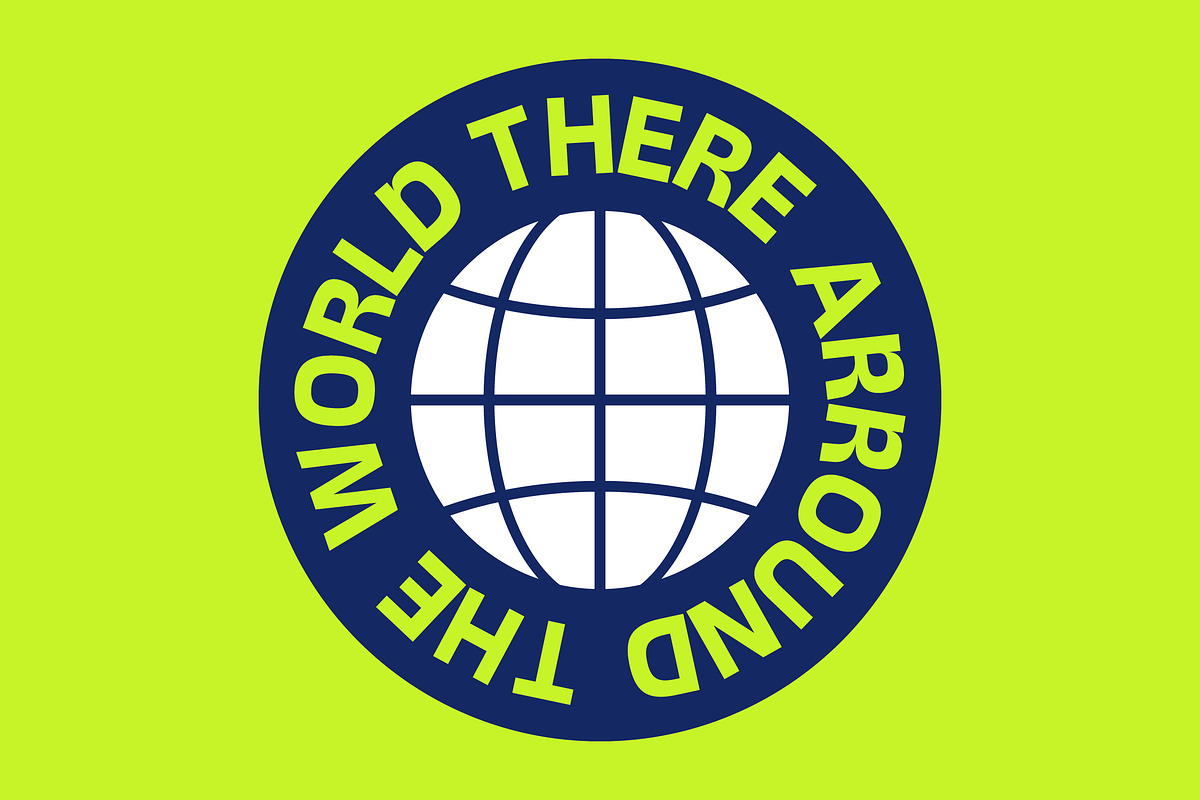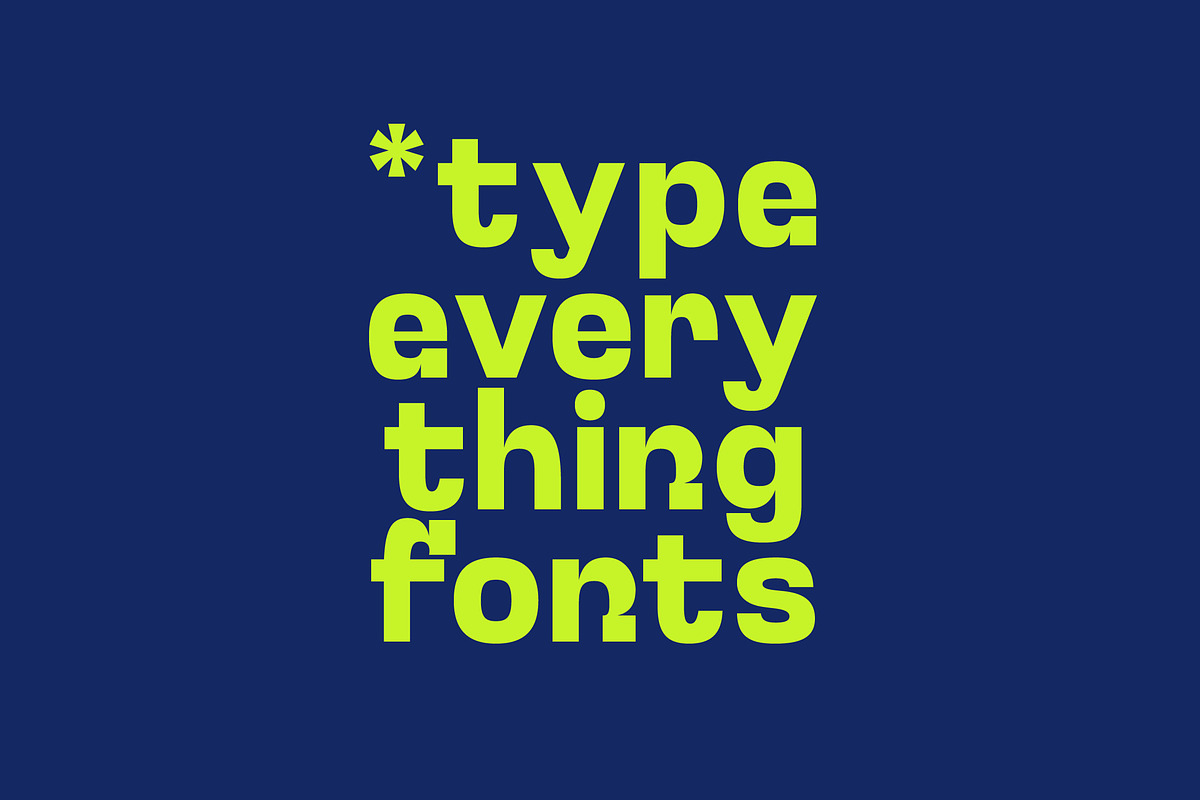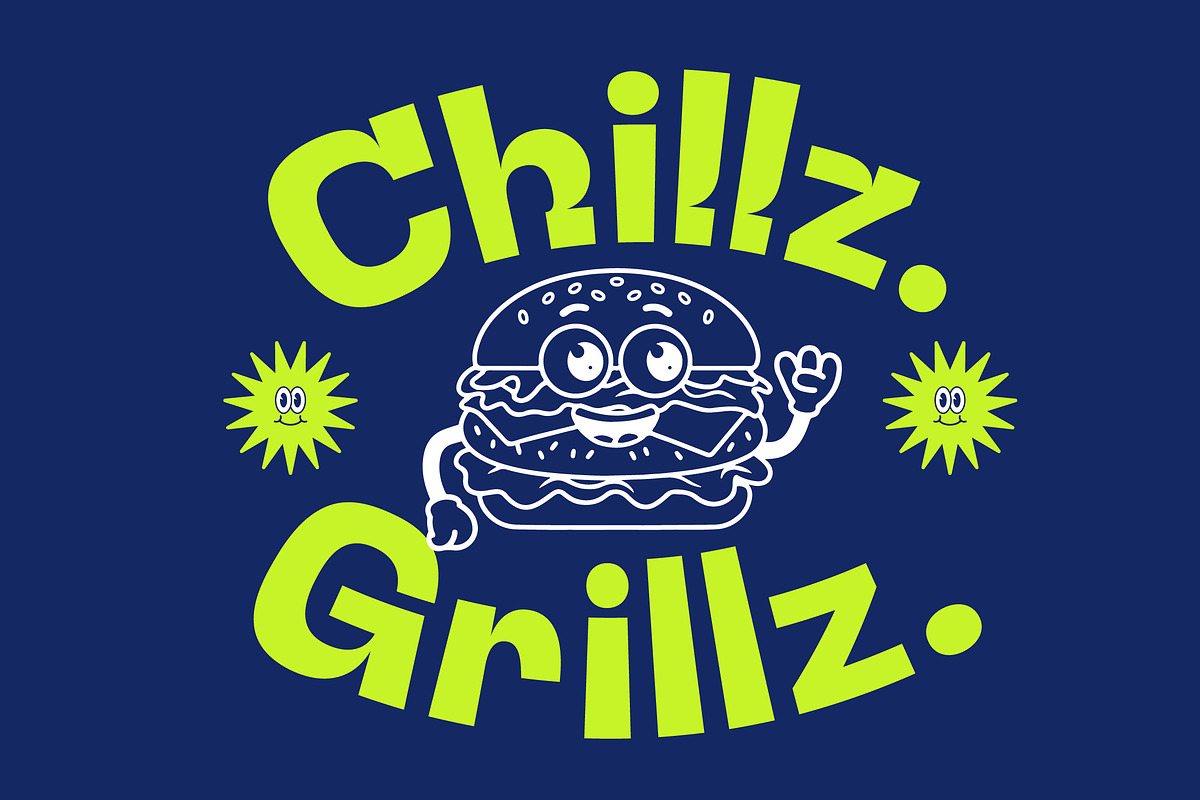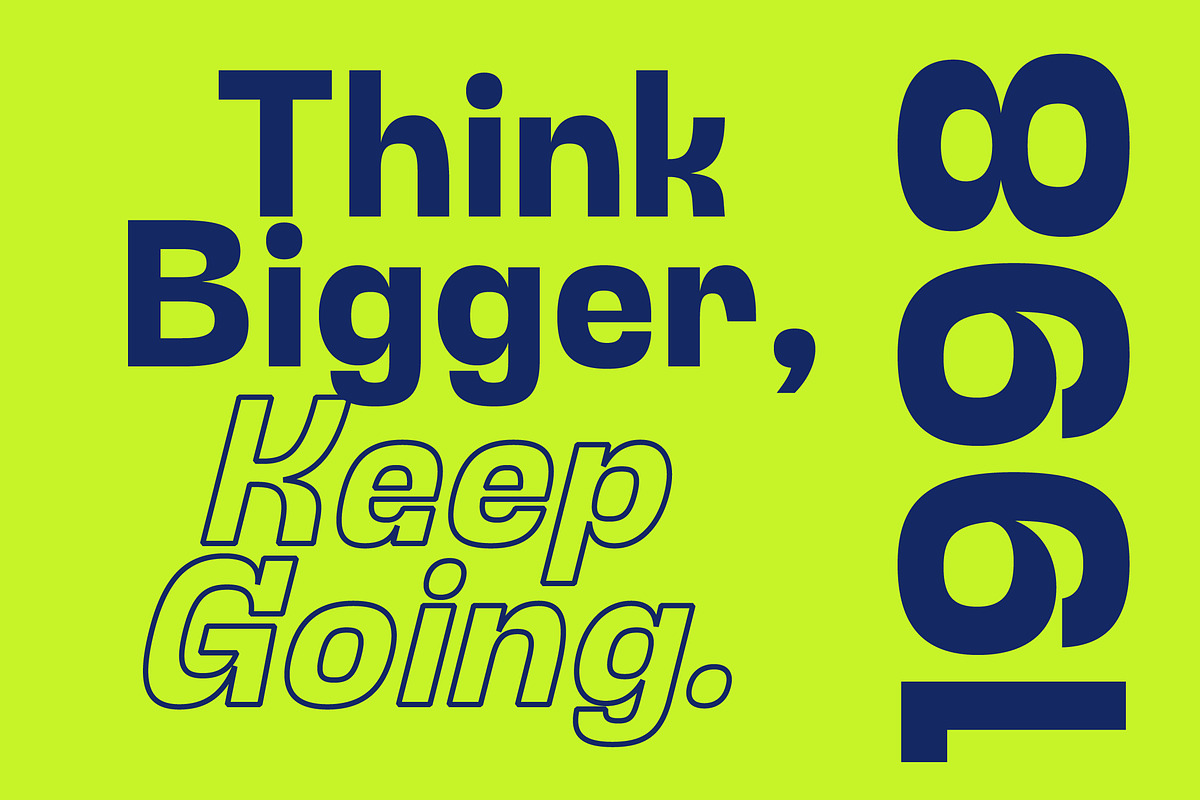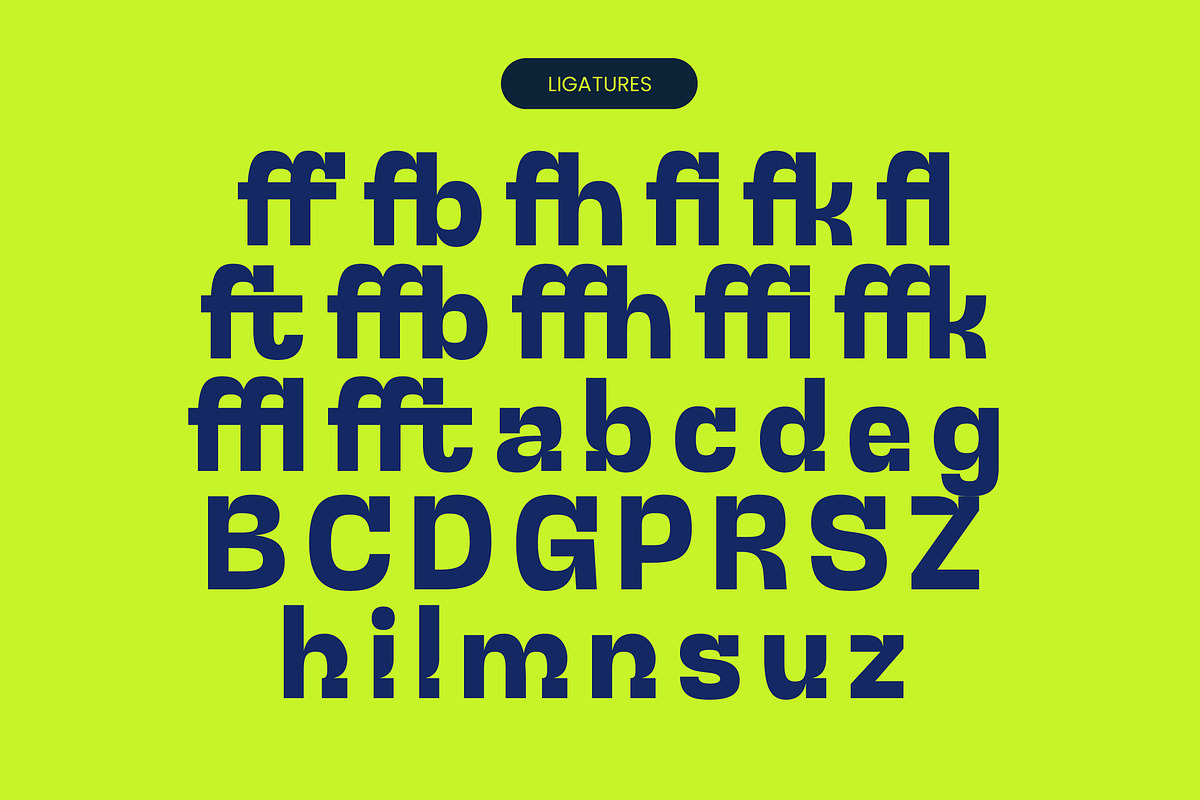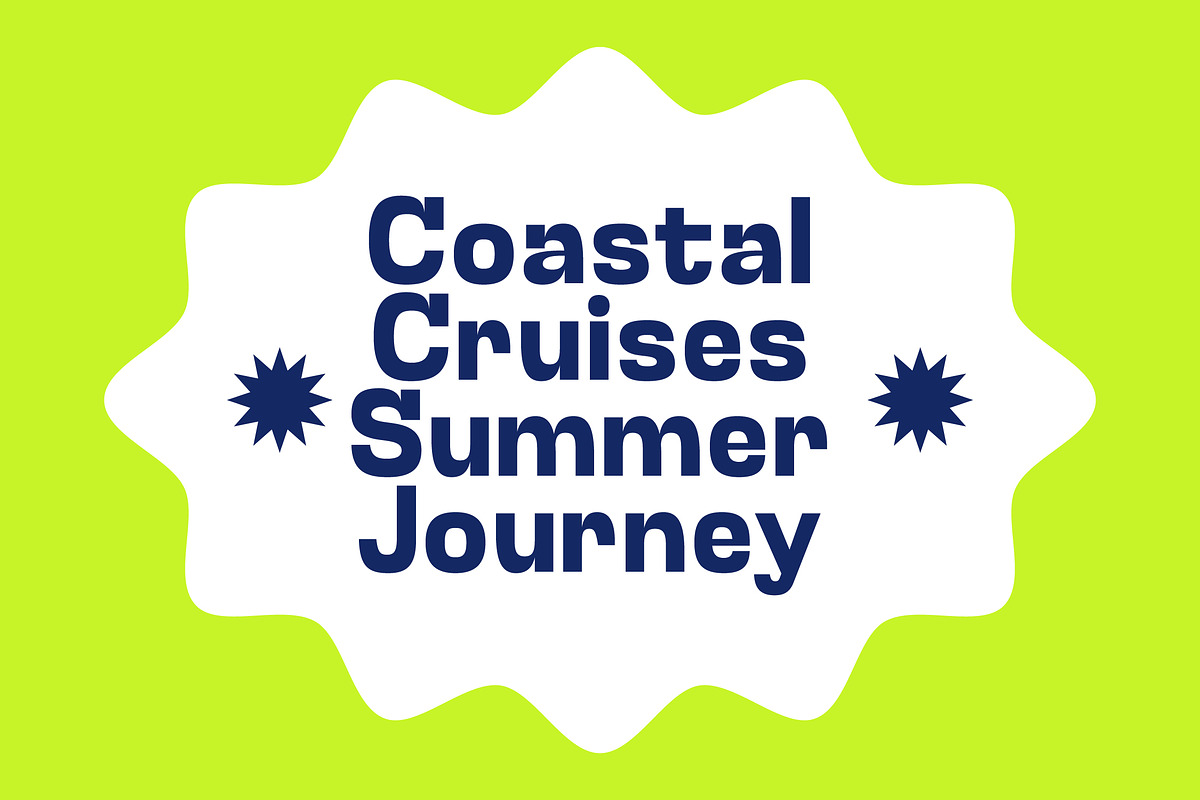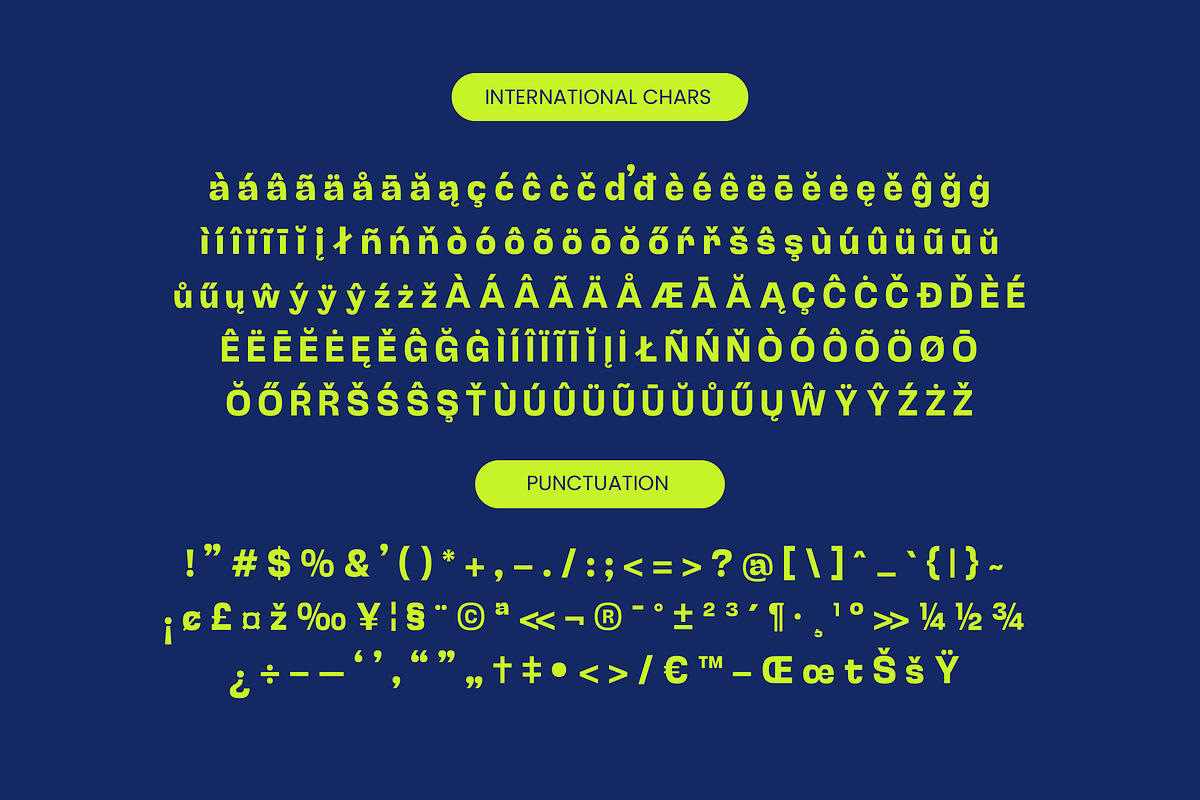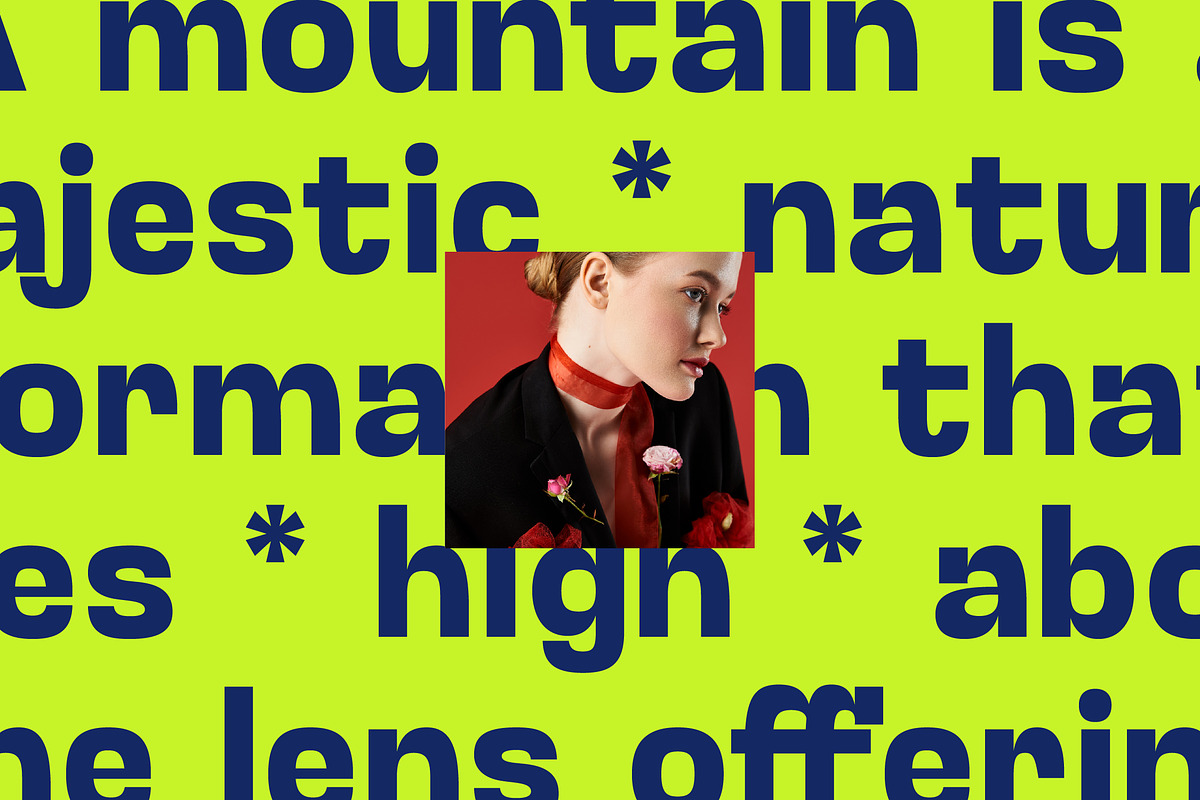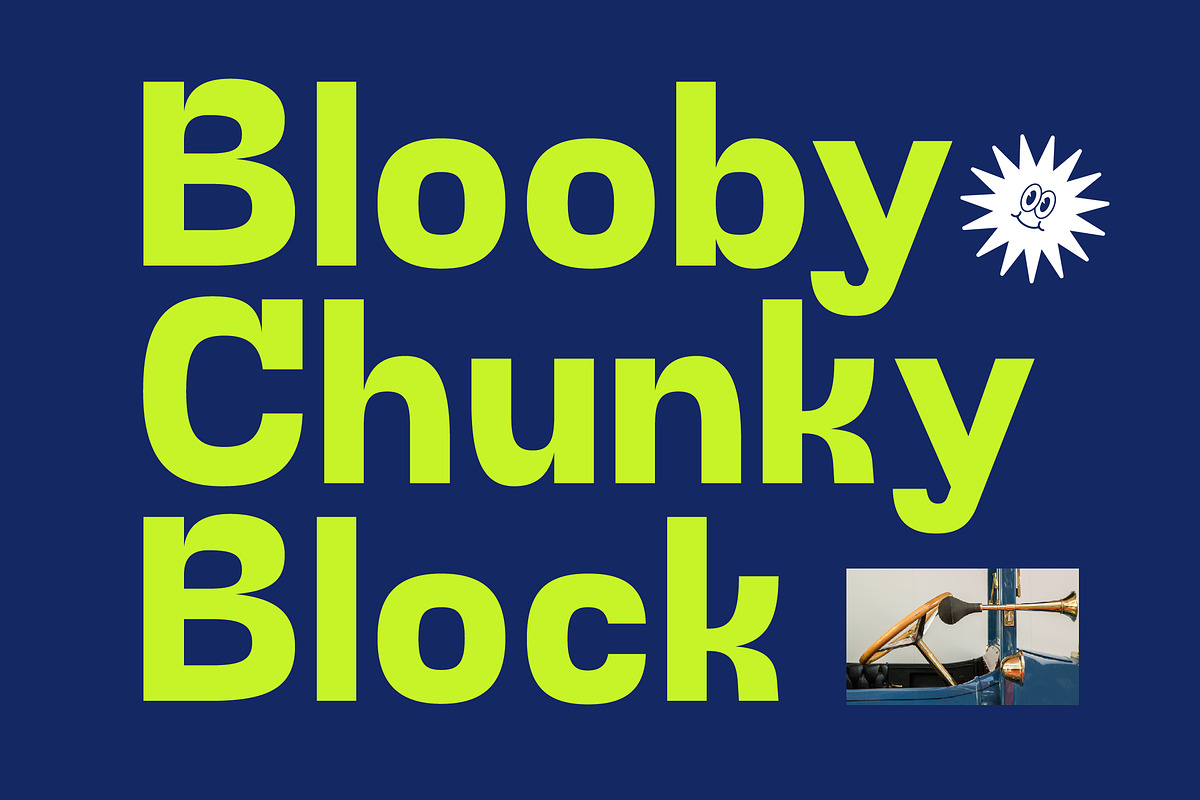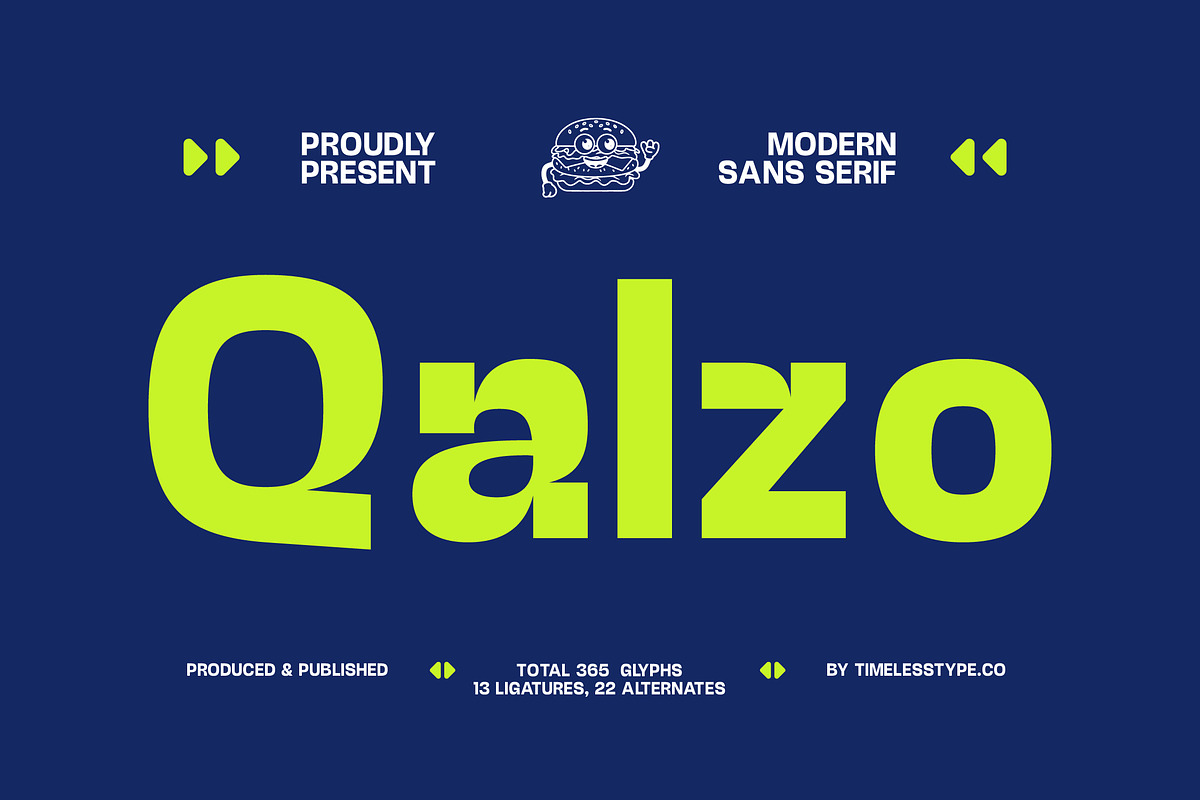
Qalzo Bold Modern Display Sans
Qalzo is the definitive choice for creators who demand a striking visual presence and a touch of avant-garde sophistication in their work. This typeface is more than just a font; it is a bold declaration of style that elevates every pixel and print to a professional editorial standard.
Born from a vision of futuristic geometry and urban landscapes, the typeface reflects a world where technology and art collide seamlessly. Its sharp cuts and unexpected curves create a rhythmic flow that mimics the high-speed energy of modern city life.
The font exudes a modern serif display vibe through its unique character treatments, offering a level of luxury typography rarely seen in standard sets. This high-contrast serif inspired aesthetic makes it a powerful editorial font that guarantees a lasting branding impact for premium clients.
As the modern serif trend continues to dominate the creative industry, this typeface provides the perfect solution for those seeking editorial display fonts. It embraces the movement toward character-driven typography, allowing designers to inject personality and soul into every headline.
Versatile enough for a high-stakes logo design or a multi-platform branding identity, the font thrives in editorial layouts and luxury packaging. From contemporary wedding stationery to cutting-edge fashion lookbooks, it adapts to the most demanding creative environments.
Built for professional workflows, the set is loaded with custom ligatures and stylistic alternates that unlock unique design paths. It also features swashes for added flair alongside full multilingual capabilities and essential international characters for a global reach.
- Ligature 13 Alternate 22